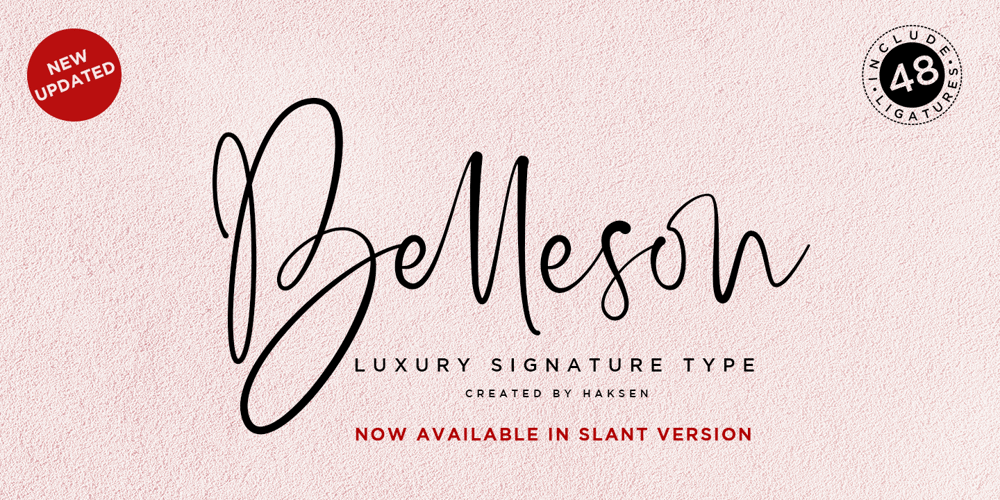
Belleson
Belleson font
Belleson Font Family was designed by Sarwo Edhi Prayitno and published by Haksen. Belleson contains 2 styles and family package options. Hello Font Lovers! Introducing my script font called Belleson! Belleson is a luxury script that contains many characters and ligatures that will show elegant taste when you use this font. Belleson has many functions – logos, blogs, websites, and all everything that related to letters! How to use this font if I can’t operation of many software like as Photoshop, illustrator and anything? Please don’t worry about it 🙂 You can use this font in all of software in your computer! With more than 40 glyphs of ligatures in this font, you will fall in love with this font. Belleson provides a handwritten look – natural but elegant in taste. Ligatures contain of : al ah at att ett ott itt ff ll tt il it am an ul th ch nt nl oi ct cl ot ol rr om on oo or ck gh of el ell et st sl ss sh op ee nn ant all ull oll